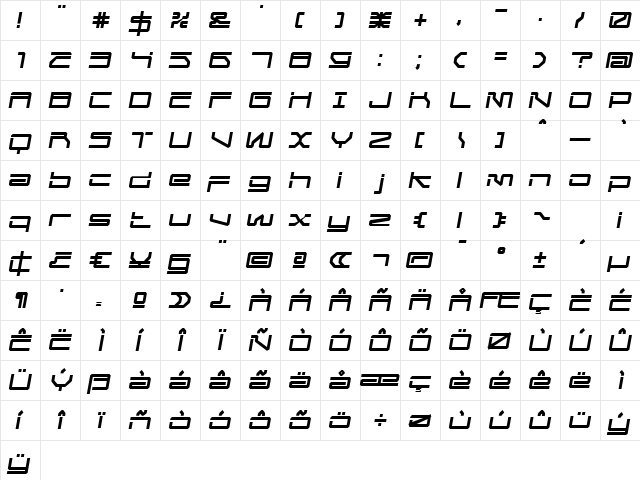
MechwarRegular Oblique Regular
Design Context for MechwarRegular Oblique Typeface
MechwarRegular Oblique is a composed and adaptable typeface that performs quietly and consistently across a wide range of design contexts. The slanted form adds forward momentum and visual energy.
Pro Tip: Try MechwarRegular Oblique for annotation and caption copy alongside an upright companion — the contrast in angle creates a dynamic but ordered typographic system.